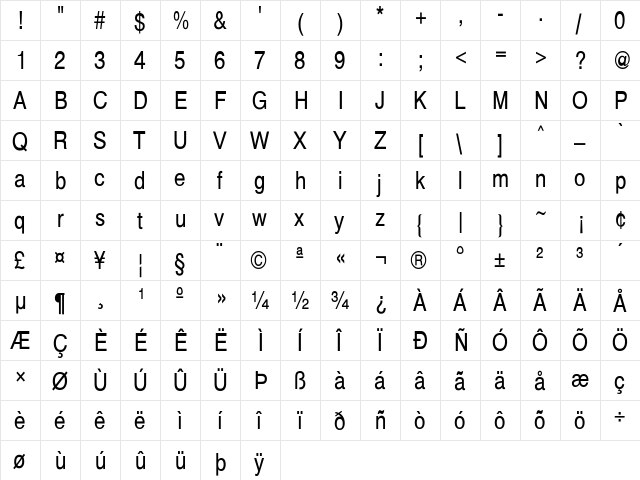
HelveticaCnd-Normal Regular Font Preview
HelveticaCnd-Normal Regular
Design Context for HelveticaCnd-Normal Typeface
HelveticaCnd-Normal is a composed and adaptable typeface that performs quietly and consistently across a wide range of design contexts.